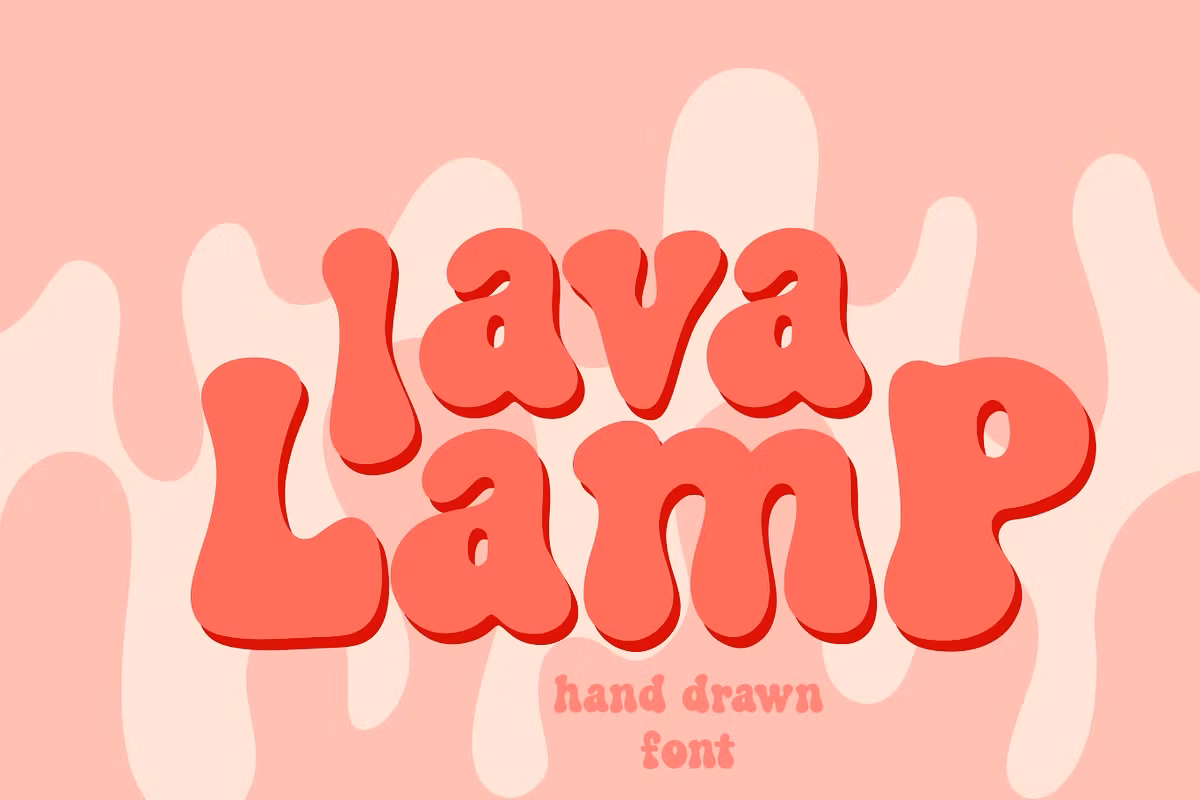
Lava Lamp Font Free Download
Please note, you must purchase this font for commercial use. However, you can easily download Lava Lamp Font Free Download for personal use and testing purposes. Lava Lamp Font is a bold and funky typeface that channels retro vibes with its playful, fluid letterforms. Perfect for projects that need a vintage touch with a modern twist, this font works well for logos, posters, branding, and social media graphics. Whether you're creating a nostalgic design, an event poster, or a creative brand identity, Lava Lamp Font Free Download will add a distinctive, fun, and energetic feel to your typography. Download Lava Lamp Font Free Download today and explore its potential before opting for a commercial license.